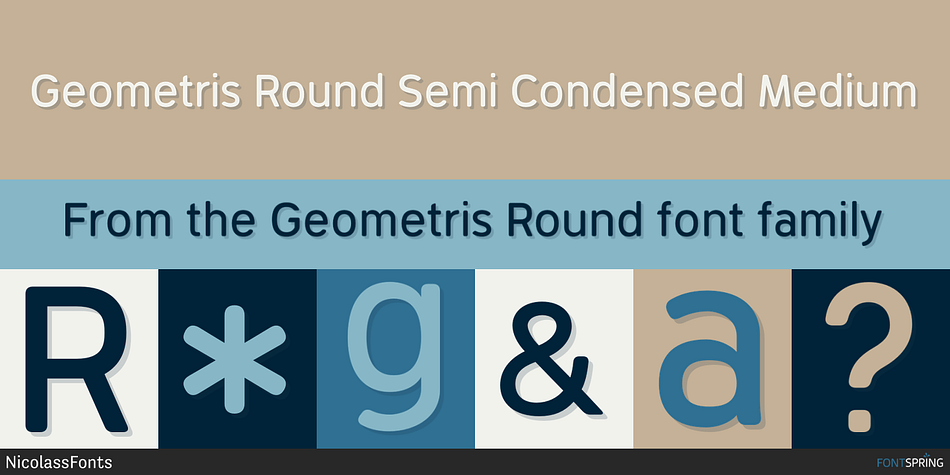
Geometris Round Semi Condensed Medium
Geometris Round is a sans serif font family. This typeface has twelve styles and was published by NicolassFonts.
Geometris Round Font Family Geometris Round Semi-Condensed was designed by Nikolay Savchuk. Geometris Round Semi-Condensed is a modern versatile sans-serif typeface. What differentiates Geometris Round Semi-Condensed from the other fonts is its exceptionally distinctive design. It is brilliantly suited for graphic design and display use and perfect for logotypes, t-shirts, packaging, brand identity, books, magazines, newspapers, posters, billboards, and advertising.
• Designer: Nikolay Savchuk